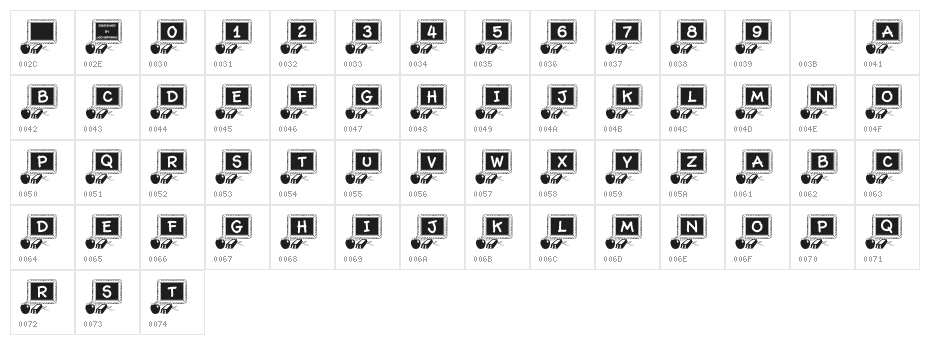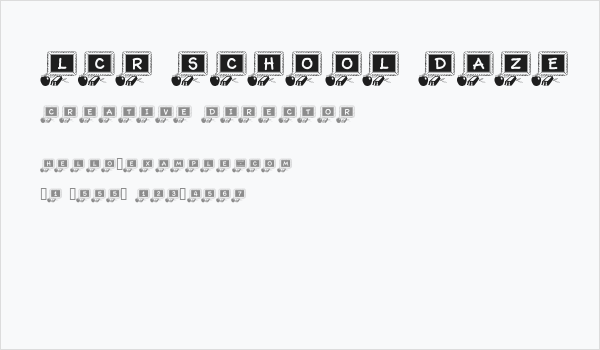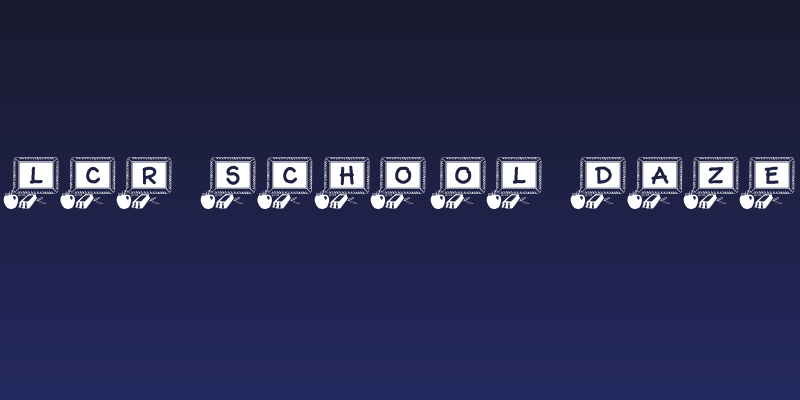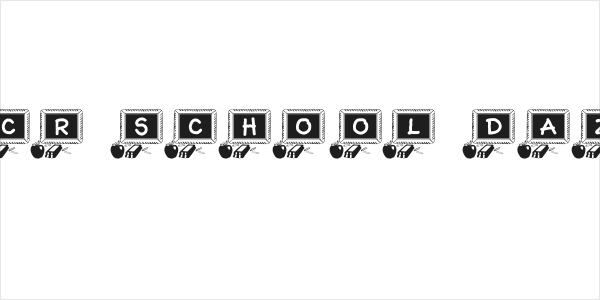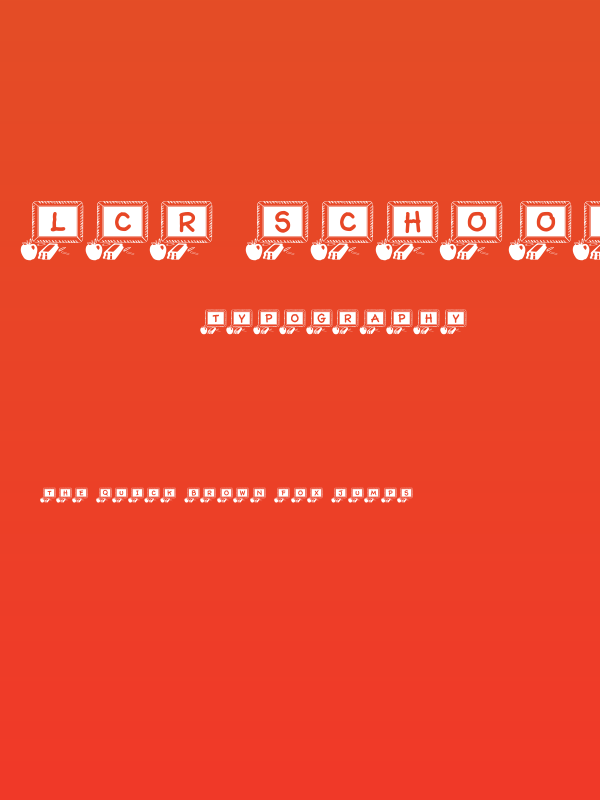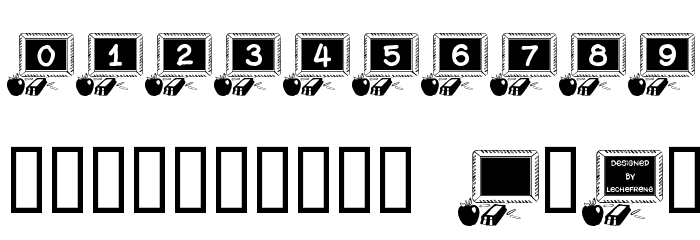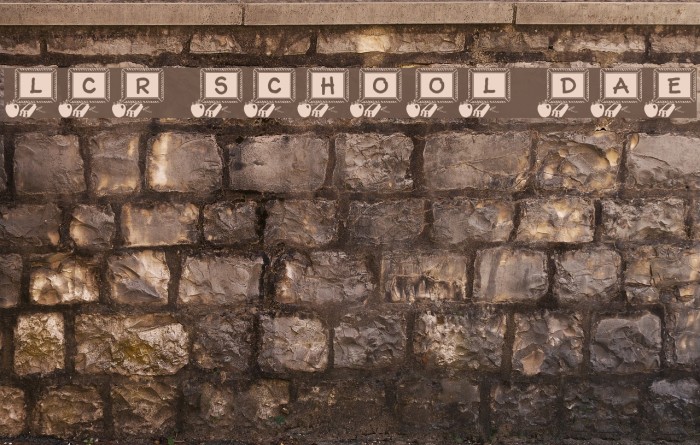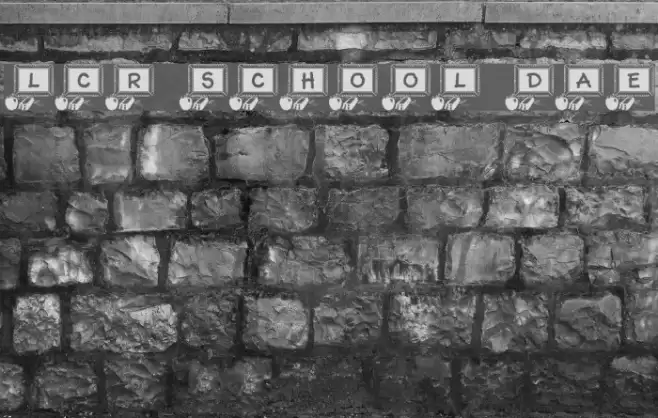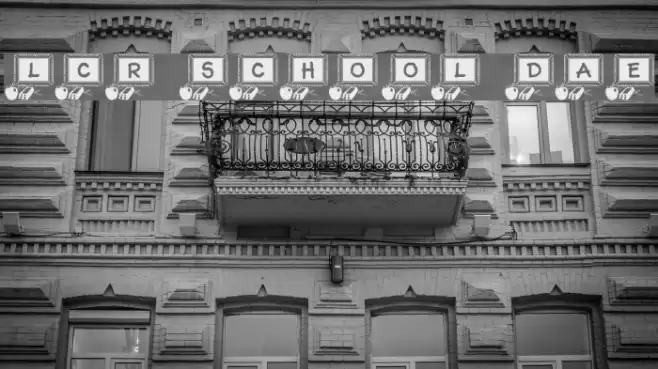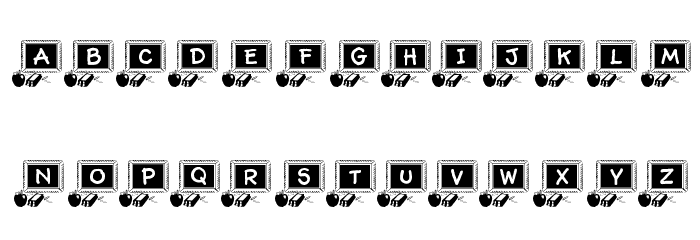
LCR School Daze Font
LCR School Daze Description
This playful and educational font features each character displayed on a chalkboard with an apple at the bottom, evoking a classic school theme. The letters and numbers are bold and clear, making them easily readable. The design incorporates a nostalgic classroom aesthetic, perfect for projects related to education or children. The unique style of each character being framed within a chalkboard adds a decorative touch, making it stand out for creative uses.
| Proposed Projects | Ideal for educational materials, children's books, school event posters, and playful branding. |